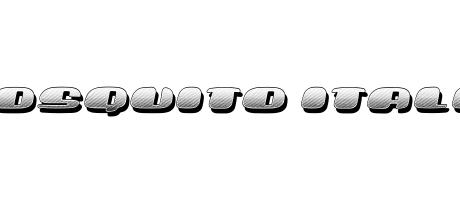
Mosquito
Mosquito Italic: A playful, slightly sinister typeface. Its chunky, rounded letters lean with a dramatic italic slant, giving a sense of speed and mischievous energy. The subtle shadowing adds depth and a metallic sheen, suggesting a retro-futuristic or sci-fi vibe. The overall effect is bold yet subtly elegant.
Vladimir Nikolic